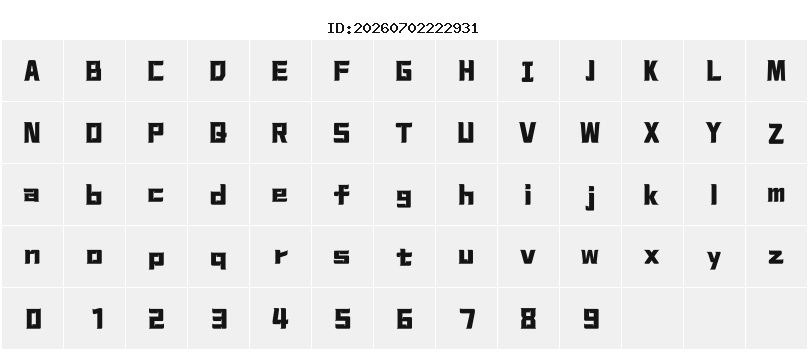
271-上首麒麟体 Preview
• Font Name: 271-上首麒麟体
• Font ID: 271-SSQiLinTi:Version 4.00
• Full Font Name: 271-上首麒麟体
• Version: Version 4.00 August 30, 2023
• PostScript Name: 271-SSQiLinTi
• Character Count: 7567
• Manufacturer: 上首造字
About 271-上首麒麟体.ttf
271-上首麒麟体.ttf is a modern, elegant sans-serif font designed for ultimate readability and visual harmony. Perfect for branding, headlines, web design, and print materials.